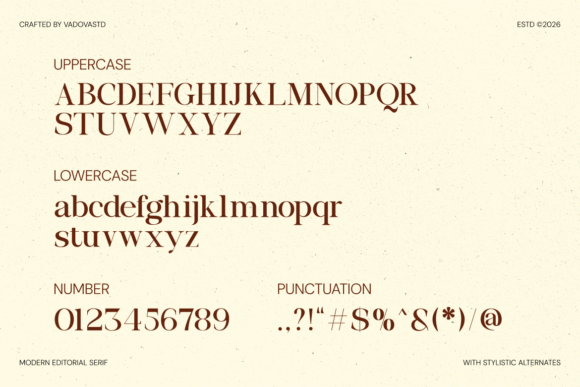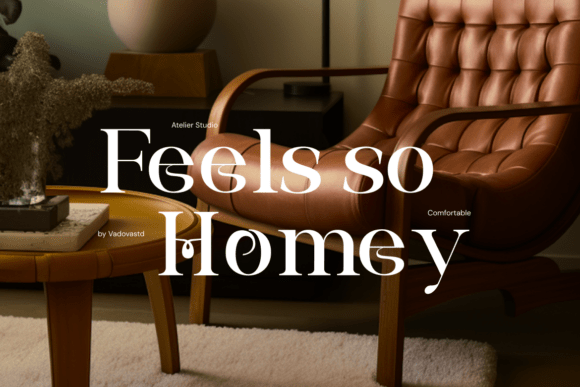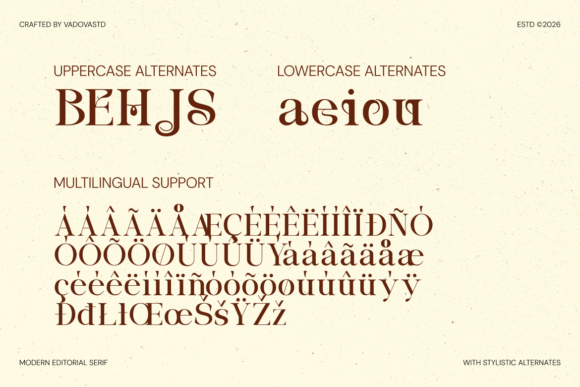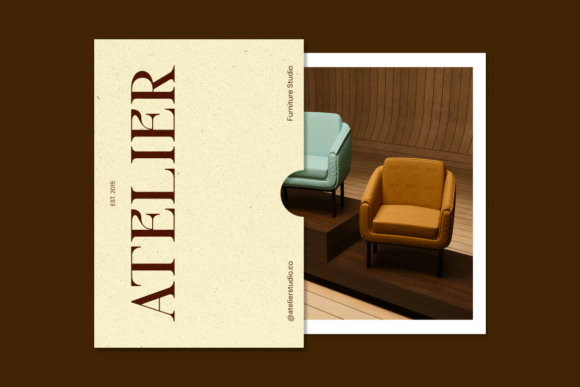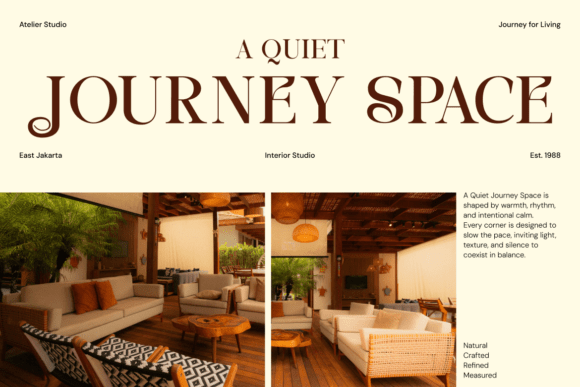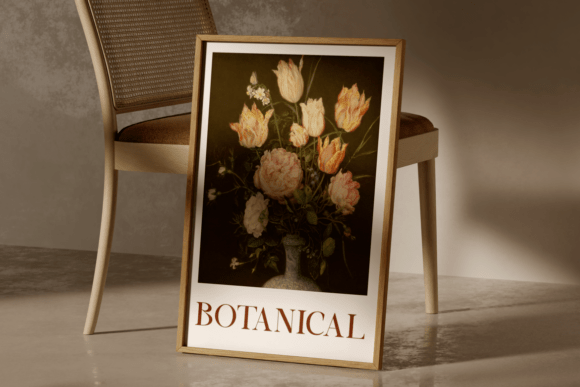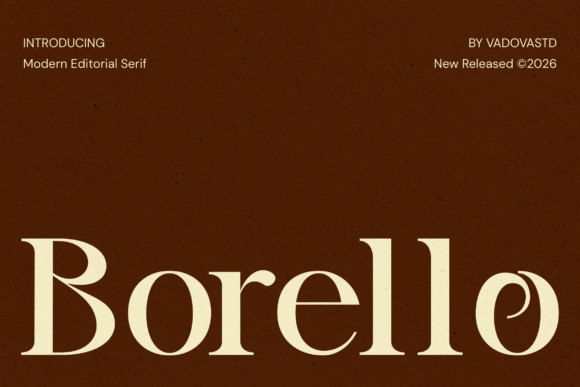
The Quest for the Perfect Font: Discovering Borello
I still remember the frustration of working on a high-stakes design project, only to hit a roadblock when it came to choosing the right font. My client wanted something that exuded sophistication and elegance, but I was coming up blank. That’s when I stumbled upon Borello, a modern editorial serif typeface that has since become a staple in my design toolkit.
First Impressions: What I Love About Borello
Borello is a masterclass in refined typography. Here are just a few things that I love about this font:
- ✨ Refined proportions that make it perfect for both headlines and body text
- ✅ Elegant serif structure that adds a touch of sophistication to any design
- 🔥 Smooth curves and sharp details that create a timeless editorial presence
- 🌎 Multilingual support, making it a great choice for global brands
The Not-So-Perfect: A Few Quirks and Limitations
No font is perfect, and Borello is no exception. Here are a few things to keep in mind:
- 🤔 Some users may find the font a bit too slender for certain design applications
- ⚠️ Limited availability of certain stylistic alternates, which may limit creative flexibility
The Story Behind Borello: Designer Inspiration
Borello was designed with the modern editorial landscape in mind. Its creator sought to craft a font that would be both elegant and versatile, capable of handling everything from headlines to body text. The result is a font that’s both timeless and contemporary, perfect for designers looking to add a touch of sophistication to their work.
| Font Name | Borello Font |
| Author | Vadova Std |
| What is Borello’s personality? | Borello is a sophisticated, elegant font perfect for editorial design, branding, and high-end marketing materials. |
| Is Borello suitable for body text? | Yes, Borello is designed to be legible and elegant in both headlines and body text. |
| Does Borello support multilingual text? | Yes, Borello includes multilingual support, making it a great choice for global brands and international design projects. |